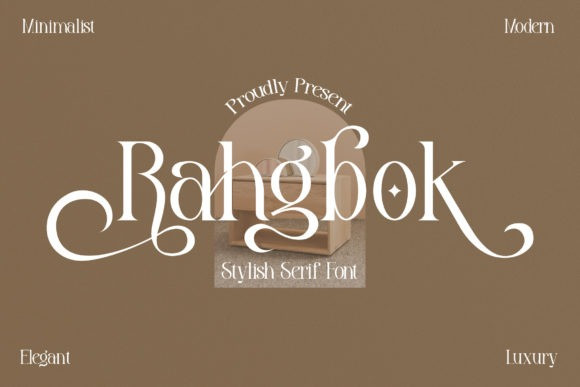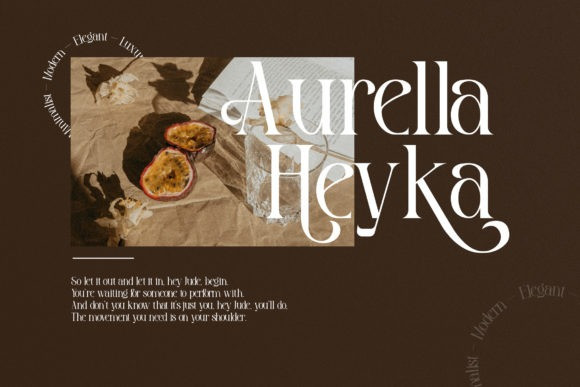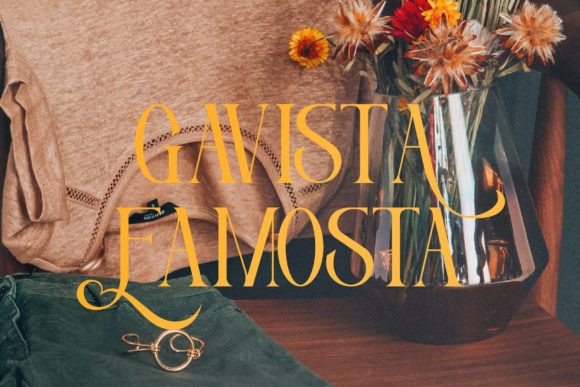
Rahgbok Font
Rahgbok is a stylish and elegant serif font. It is PUA encoded which means you can access all of the glyphs and swashes with ease! Add it confidently to your projects, and you will love the results.